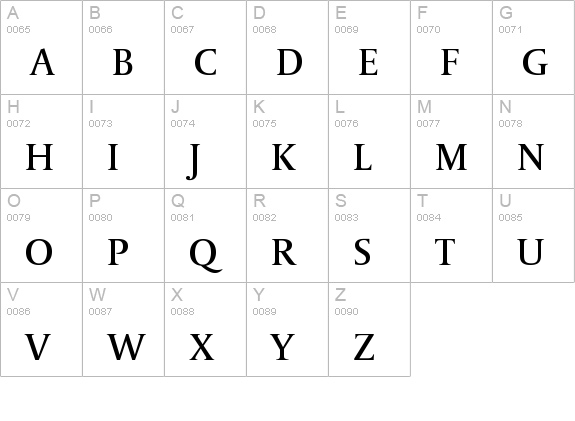
DTLParadoxST-Medium is a balanced, medium-weight variant in the DTLParadoxST typeface family \xE2\x80\x94 well suited to sub-headlines, navigation, and balanced editorial work.
DTLParadoxST-Medium is a versatile and modern font that strikes the perfect balance between elegance and readability. Its clean lines and sophisticated design make it ideal for a wide range of projects, from branding to editorial design. The medium weight of this font gives it a strong presence without being overpowering, making it a great choice for headlines and body text alike. What sets DTLParadoxST-Medium apart is that it is available for free download at FontsMarket.com, making it accessible to designers and creatives of all levels. Whether you're working on a personal project or a professional assignment, this font is sure to elevate your designs and leave a lasting impression. Don't miss out on this opportunity to enhance your typography collection with DTLParadoxST-Medium – download it today and start creating stunning visuals with ease.